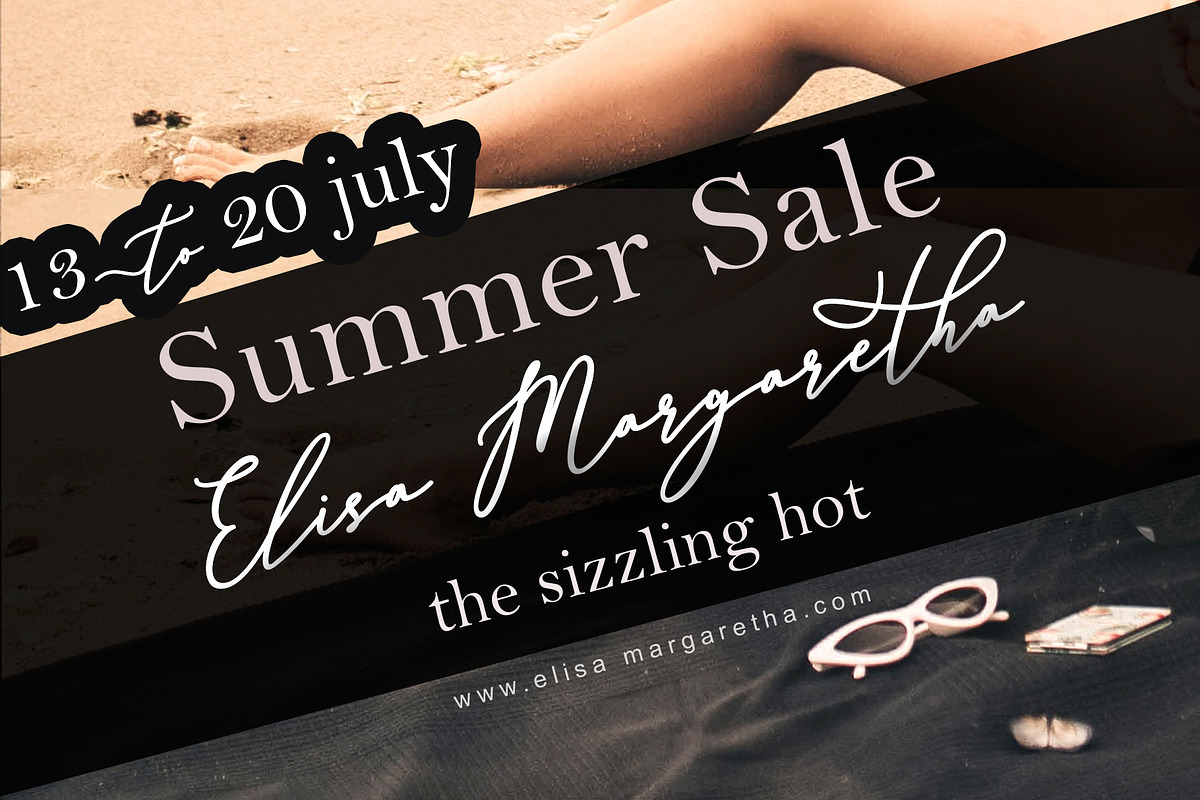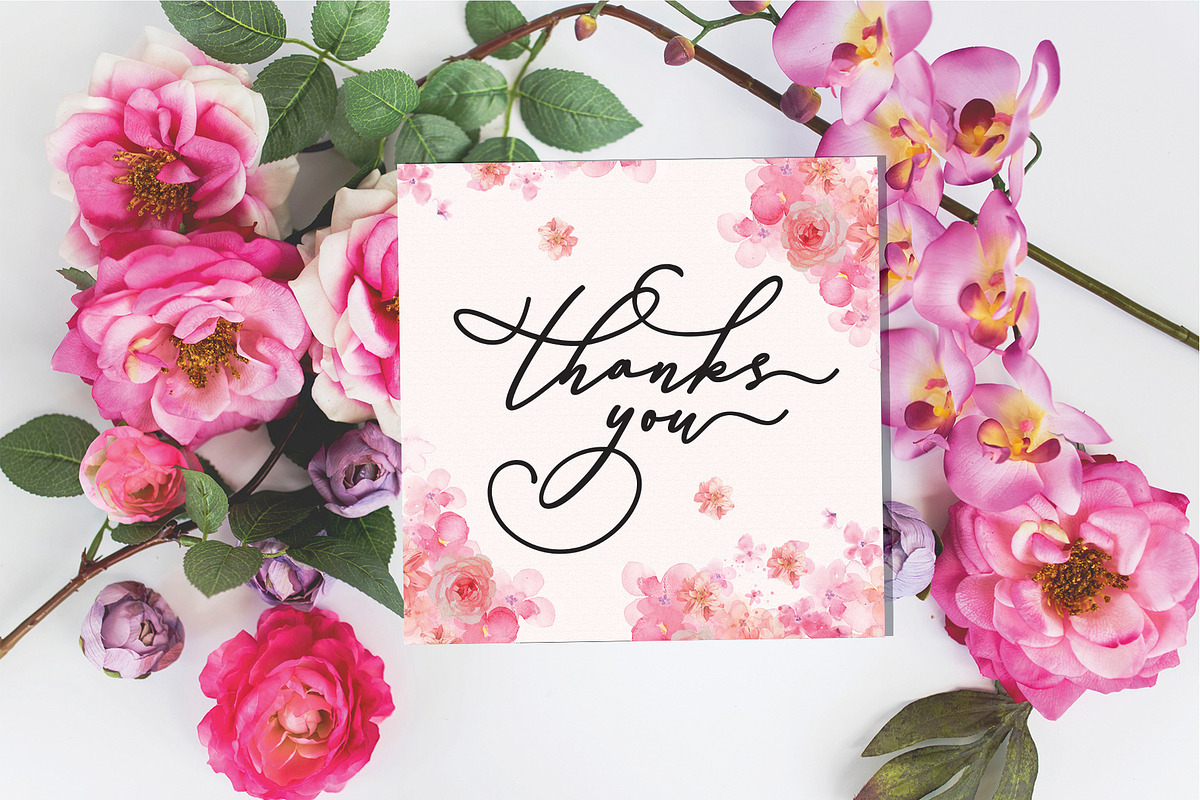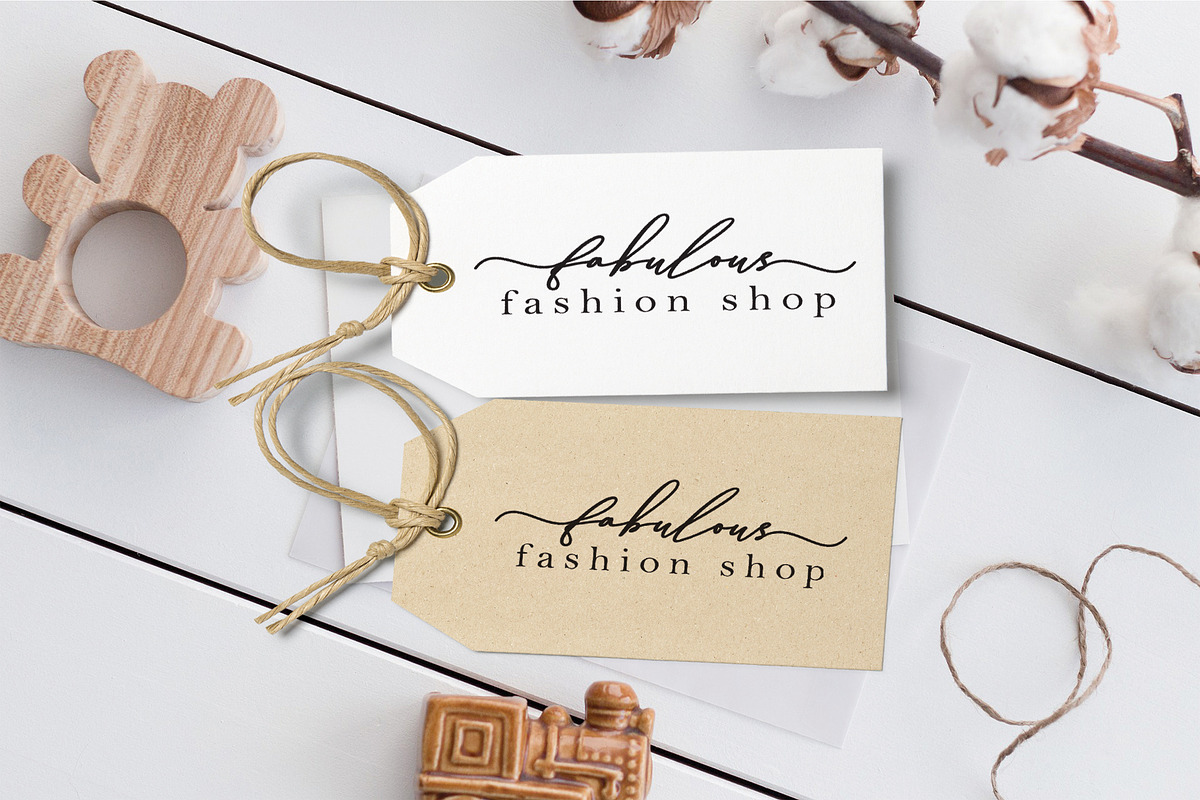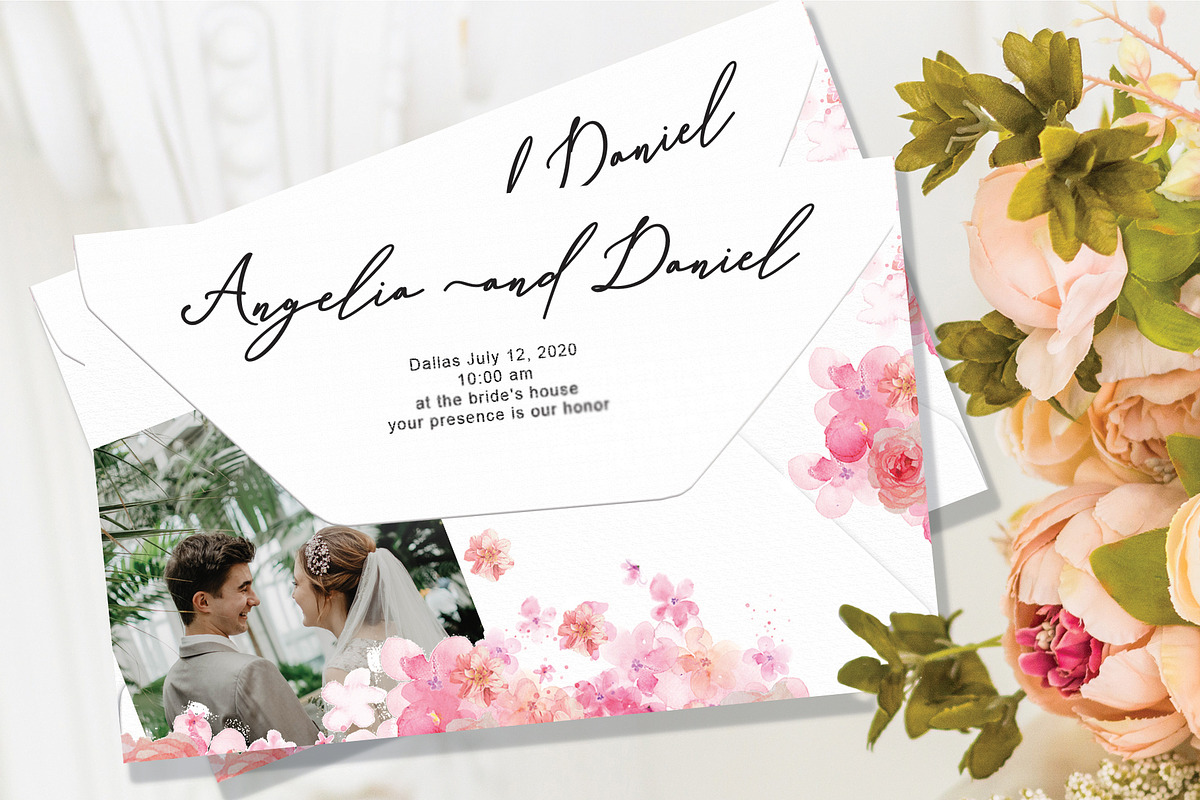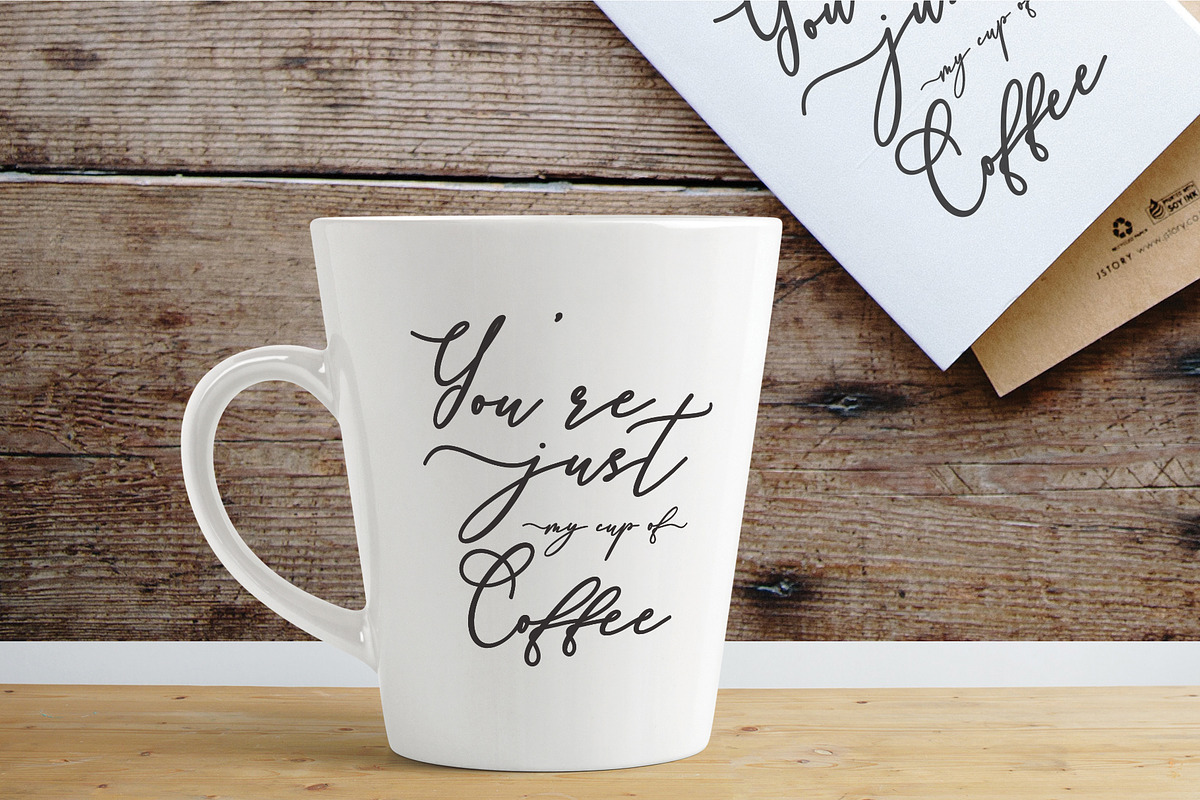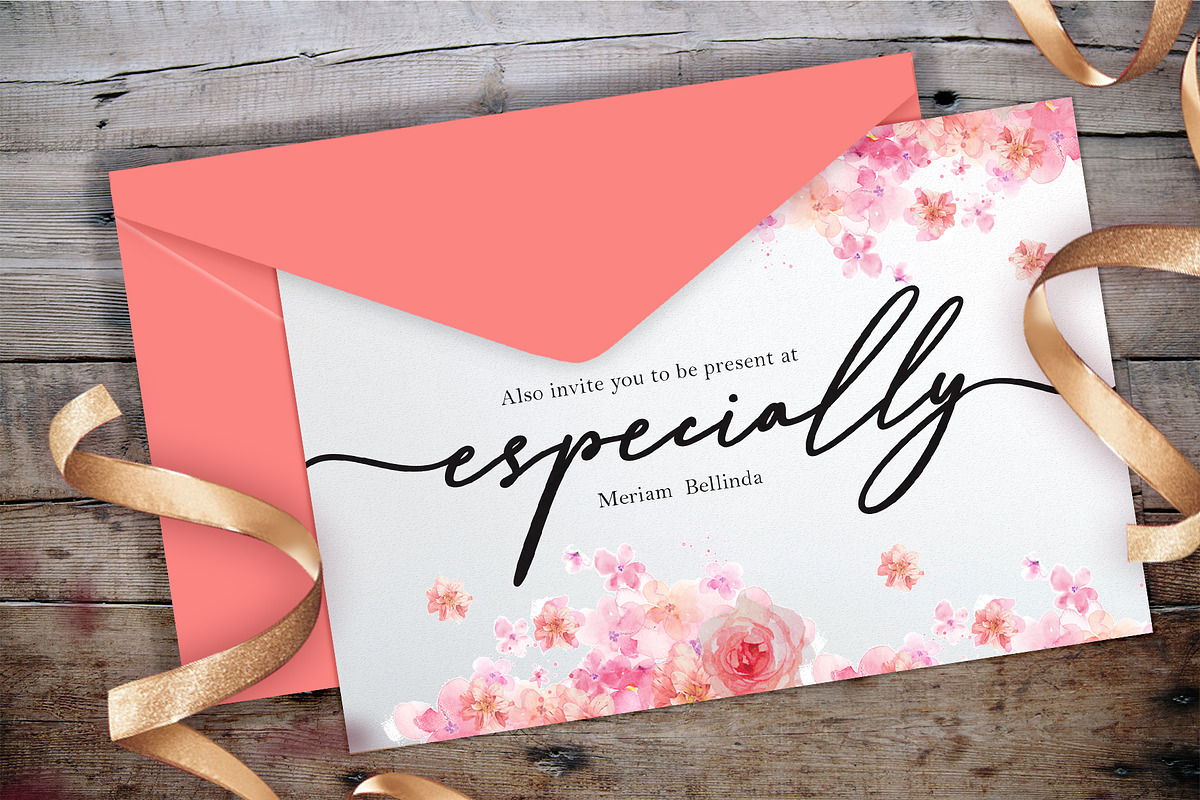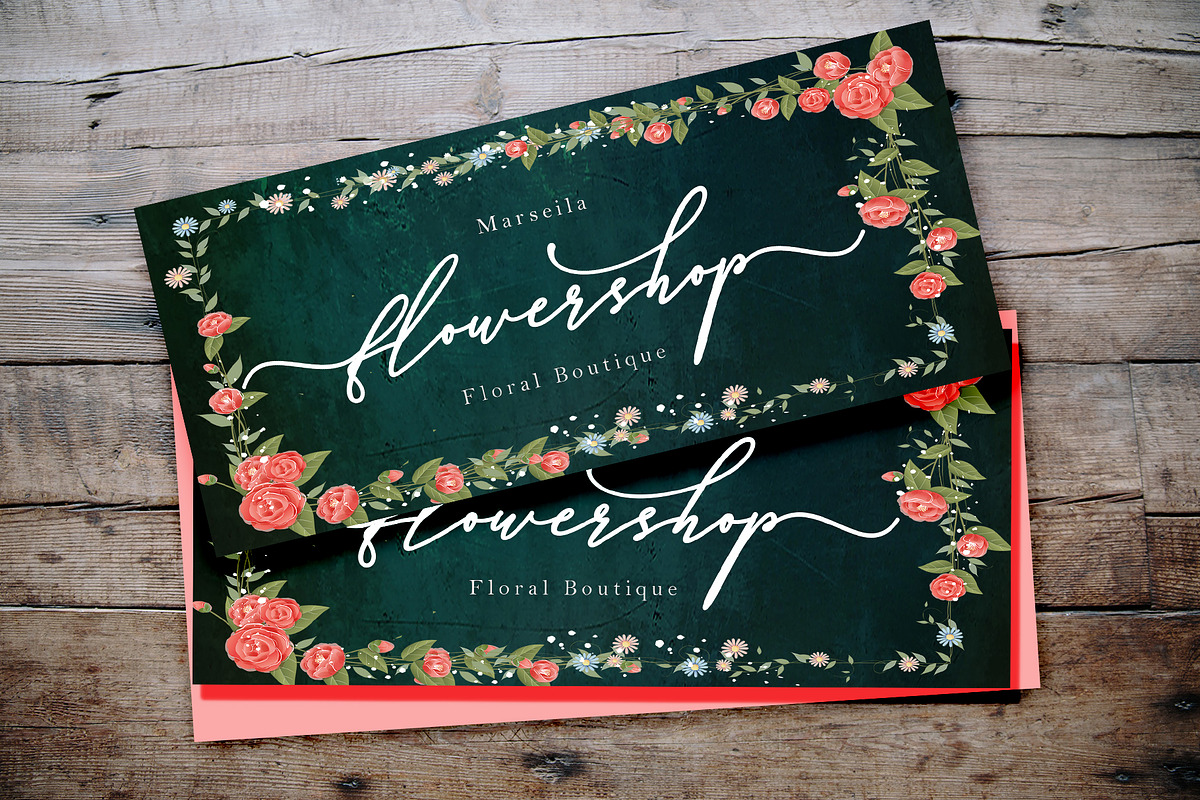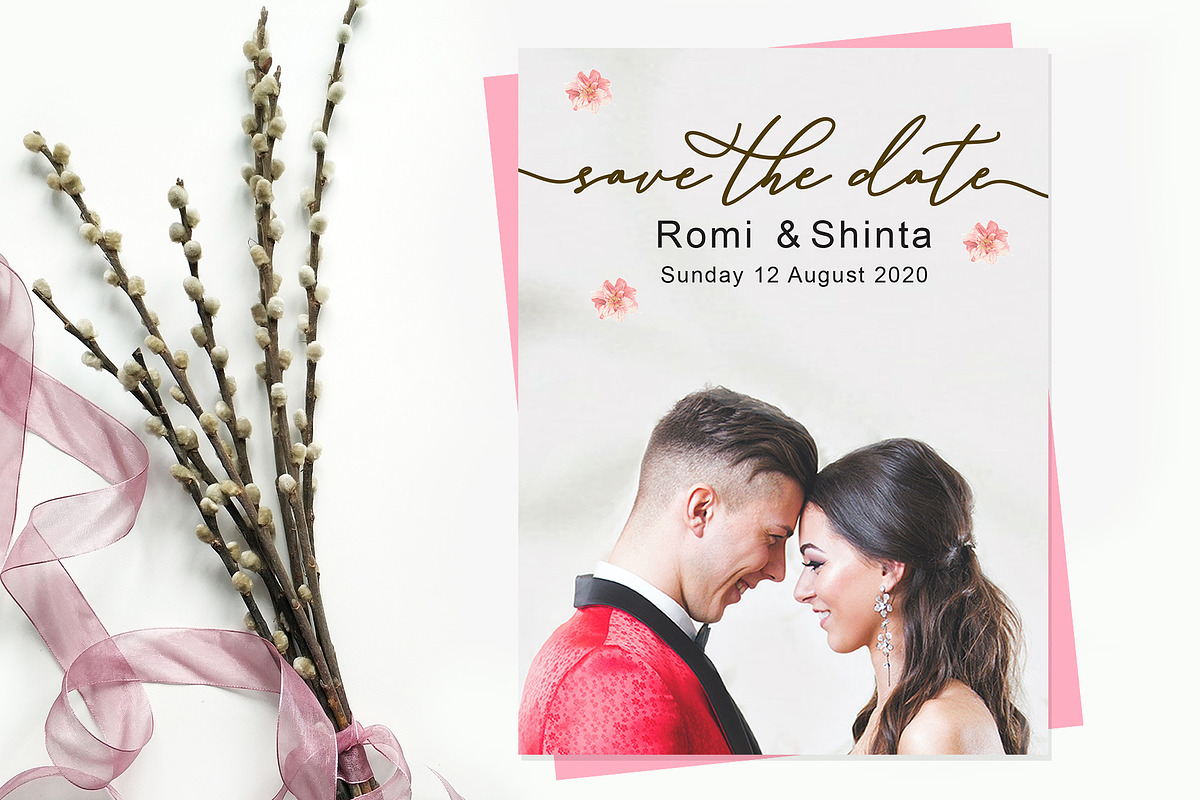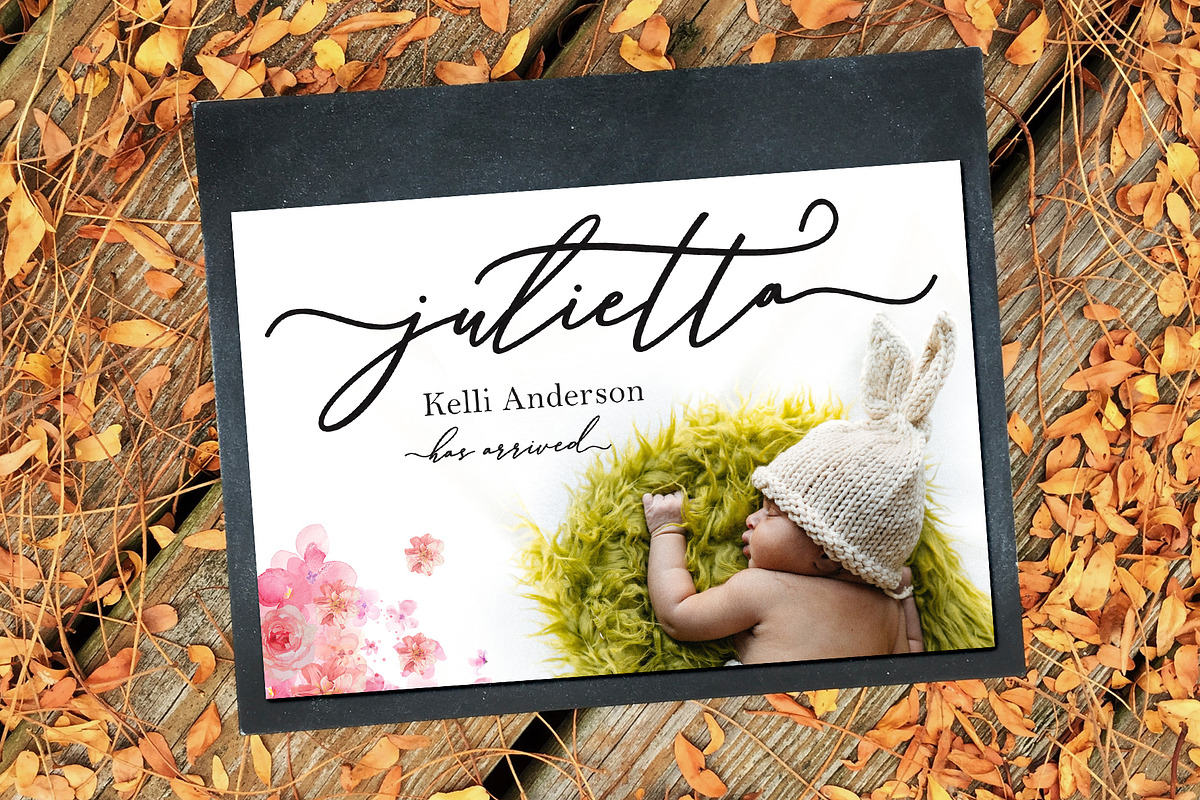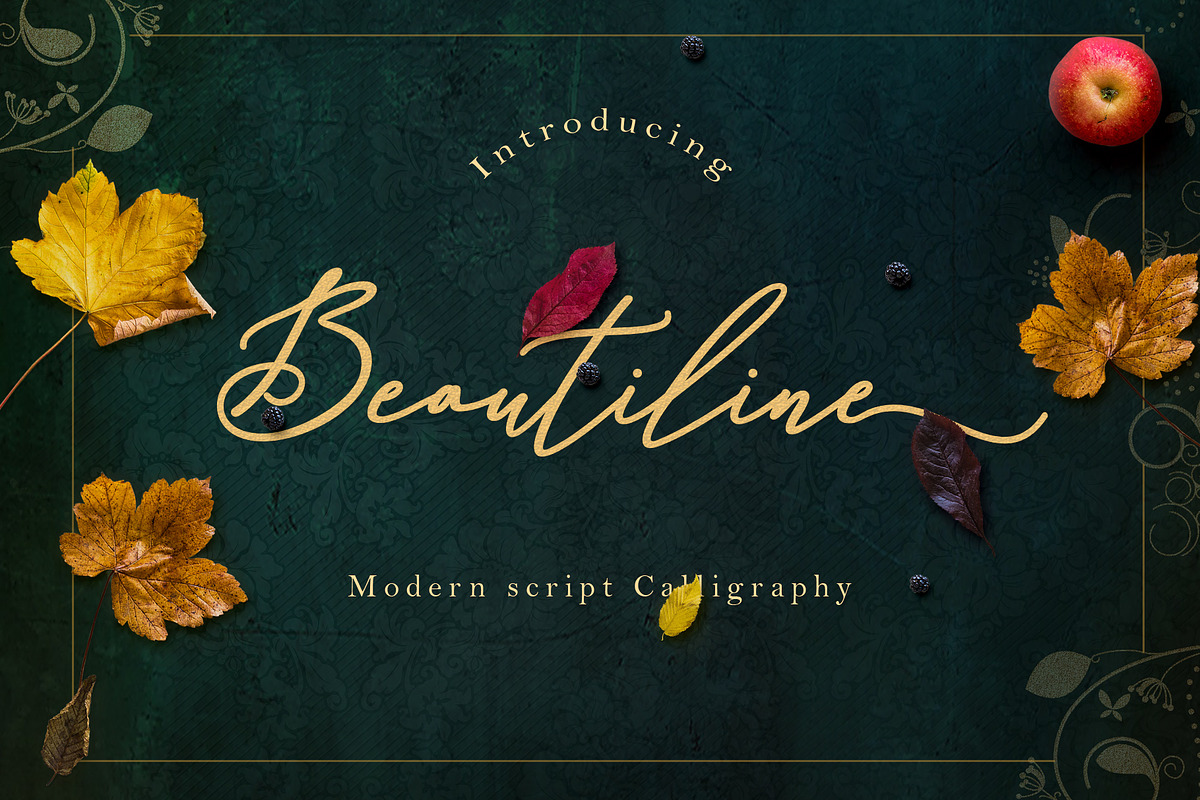
Beautiline Script
Beautiline Script has a romantic and modern calligraphy, ready to give your design a fresh and fabulous
Style.
Beautiline Script comes as a single font file packed full of great features.Perfect for weddings, branding and romantic invitations and also suitable for various purposes such as digital lettering, headings, logos, wedding invitations, t-shirts, letterheads, signage’s and much more!.Files included: